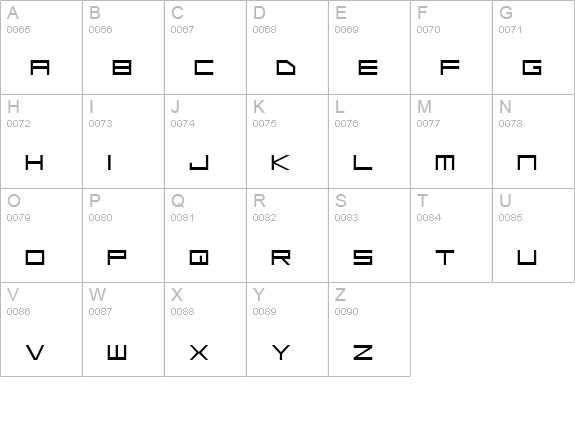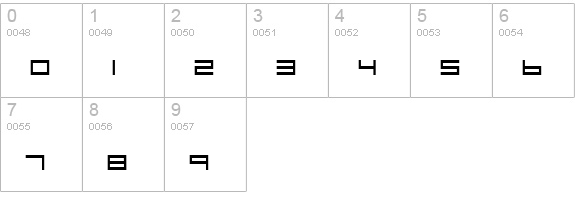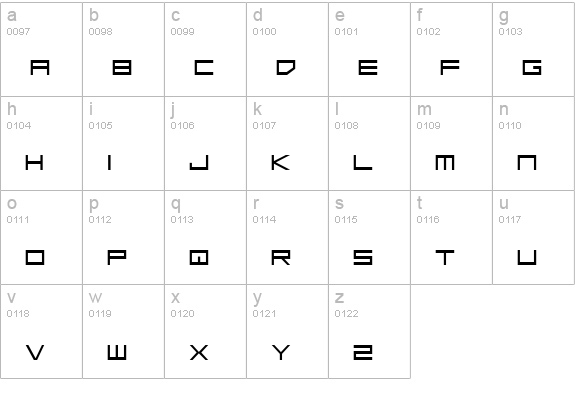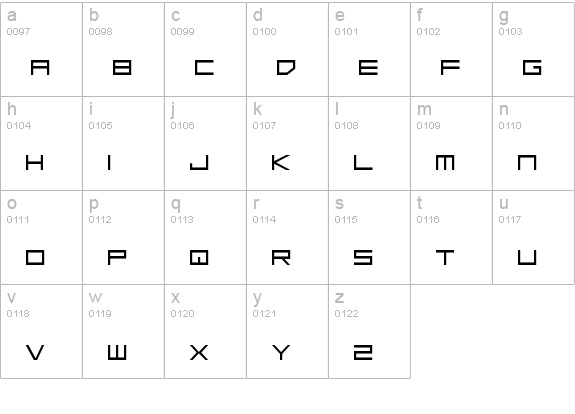
Low Gun Screen Expanded is a distinctive, extended-width variant in the Low typeface family \xE2\x80\x94 well suited to design and typography projects.
Low Gun Screen Expanded font is a modern and edgy typeface that is perfect for making a bold statement in your designs. With its sleek lines and geometric shapes, this font exudes a contemporary and industrial vibe that is sure to grab attention. The extended width of the characters gives a unique look that is both stylish and easy to read. But the best part? Low Gun Screen Expanded font is completely free for personal and commercial use! You can download this versatile font at FontsMarket.com and start using it in your projects right away. Whether you're designing a poster, logo, website, or any other creative project, Low Gun Screen Expanded font will add a touch of modern sophistication to your work. Don't miss out on this fantastic font – download it now and elevate your designs to the next level!